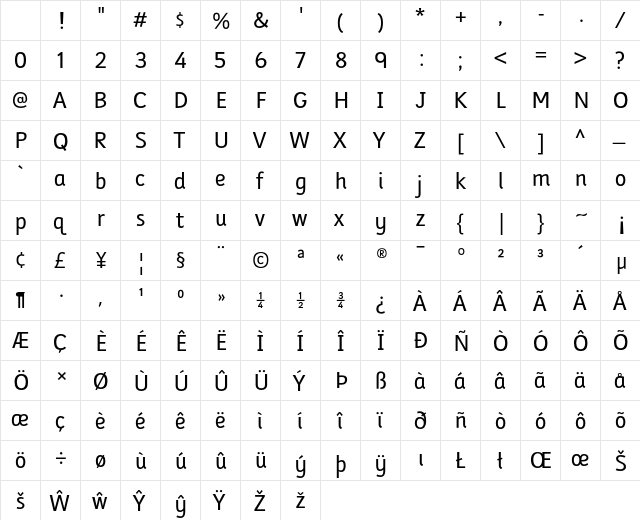
Complete Folder Regular glyph index. Displaying only characters natively supported by Folder Regular font.
Folder is a composed and adaptable typeface that performs quietly and consistently across a wide range of design contexts.